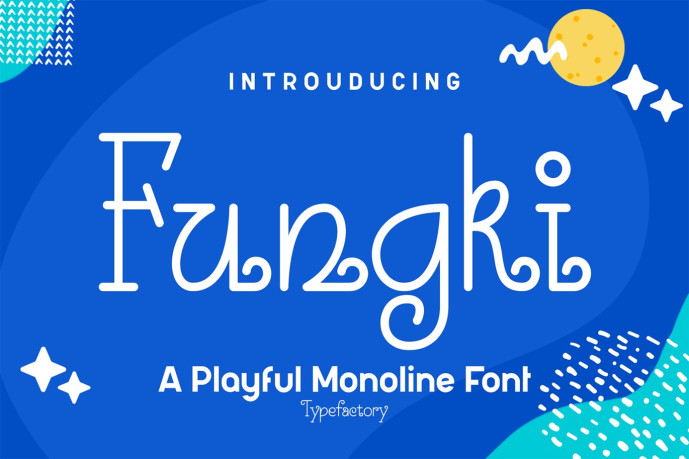
Fungki is a playful monoline handwritten font featuring elegant curls, whimsical letterforms, and a clean handcrafted appearance. Its charming personality makes it perfect for children’s products, invitations, greeting cards, logos, branding, packaging, mugs, social media, stationery, quotes, posters, and creative craft projects. Complete with uppercase, lowercase, numerals, punctuation, multilingual support, and stylistic alternates, Fungki adds a cheerful handmade touch to both print and digital designs.